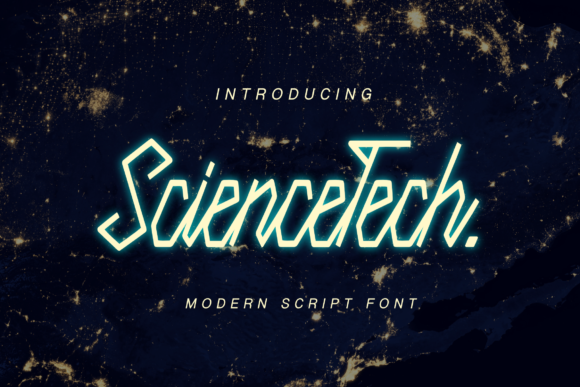
Journey into the realm of digital innovation with Science Tech Font, a script typeface that embodies the essence of cutting-edge technology. This monoline masterpiece, crafted by the visionary Typia Nesia, is a testament to the fusion of art and science.
As you immerse yourself in the world of Science Tech, let your designs transcend the ordinary and embrace the extraordinary. The font's sleek and futuristic strokes evoke a sense of progress and modernity, making it the perfect choice for projects that demand a touch of the avant-garde.
Picture yourself at the helm of groundbreaking campaigns, captivating presentations, or mesmerizing social media posts. With Science Tech Font at your disposal, you'll leave an indelible mark on your audience, inspiring them to rethink the boundaries of creativity.
Harness the power of Science Tech and propel your designs to the forefront of innovation. Let your imagination soar as you explore the boundless possibilities that await you.